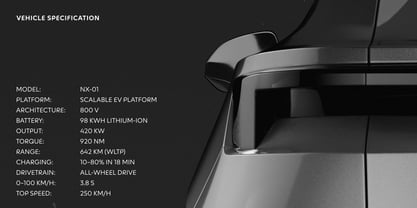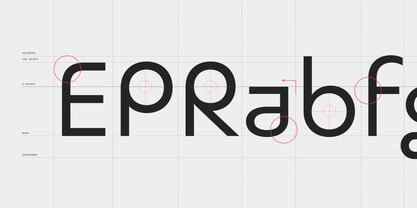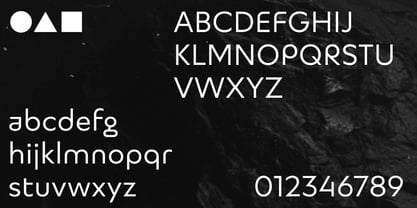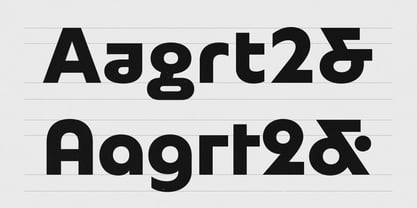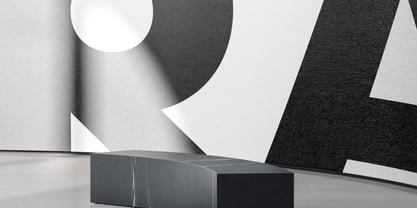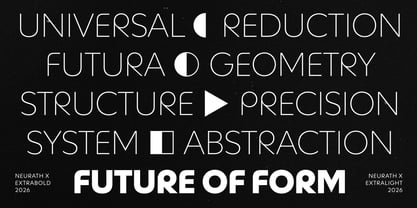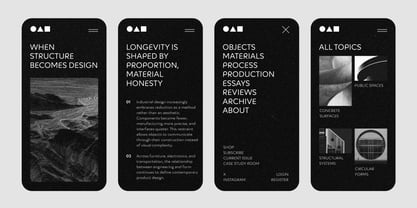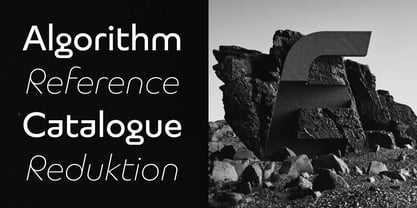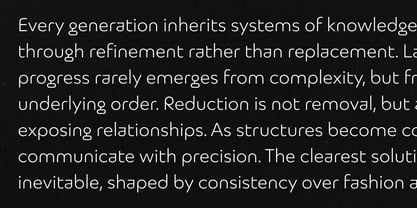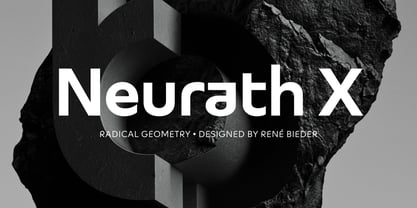
Neurath X
by René Bieder
The Neurath X Font Family was designed by René Bieder and published by René Bieder. Neurath X contains 18 styles and family package options.
Neurath X is an expressive geometric typeface that explores how far geometric reduction can be taken while preserving clarity and usability. Developed alongside Neurath, the collection’s proportional counterpart, and complemented by Neurath X Mono, it builds upon the same reinterpretation of Paul Renner’s Futura while drawing inspiration from experimental geometric projects such as Herbert Bayer’s Universal alphabet and Herb Lubalin’s ITC Ronda.
Rather than treating geometry as a historical style, Neurath X reconsiders it as an evolving design system. Conventional forms have been simplified, reconstructed, and optically refined to create a typeface with a more distinctive voice. The result is a family that feels both experimental and surprisingly natural, balancing systematic construction with everyday usability.
The family includes 18 styles from Thin to Black and a comprehensive set of OpenType features. A large collection of stylistic alternates allows designers to fine-tune the typeface’s character, ranging from restrained geometric forms to more radical interpretations inspired by early modernist experiments.
Despite its expressive appearance, Neurath X was designed as a complete type system. Careful spacing, optical refinements, and extensive language support ensure consistent performance across branding, editorial design, interfaces, packaging, and display typography, making it equally suited to conceptual work and contemporary visual identities. For projects that require fixed-width typography, Neurath X is complemented by Neurath X Mono, its monospaced companion, developed according to the same design principles.
About René Bieder
René Bieder is a German type designer and the founder of Studio René Bieder, an independent type foundry established in 2013. With a background in graphic design and art direction, he spent several years working for both boutique and international agencies before focusing exclusively on type design. The studio’s retail library ranges from contemporary sans and serif families to monospaced and display typefaces, many of which have become widely used by designers, brands, and institutions around the world. Alongside the retail collection, Studio René Bieder develops custom typefaces for international clients across branding, editorial, corporate, and digital applications. The studio’s work has received multiple awards. Today, Studio René Bieder’s typefaces are used globally by companies, cultural institutions, and designers across a broad range of industries.